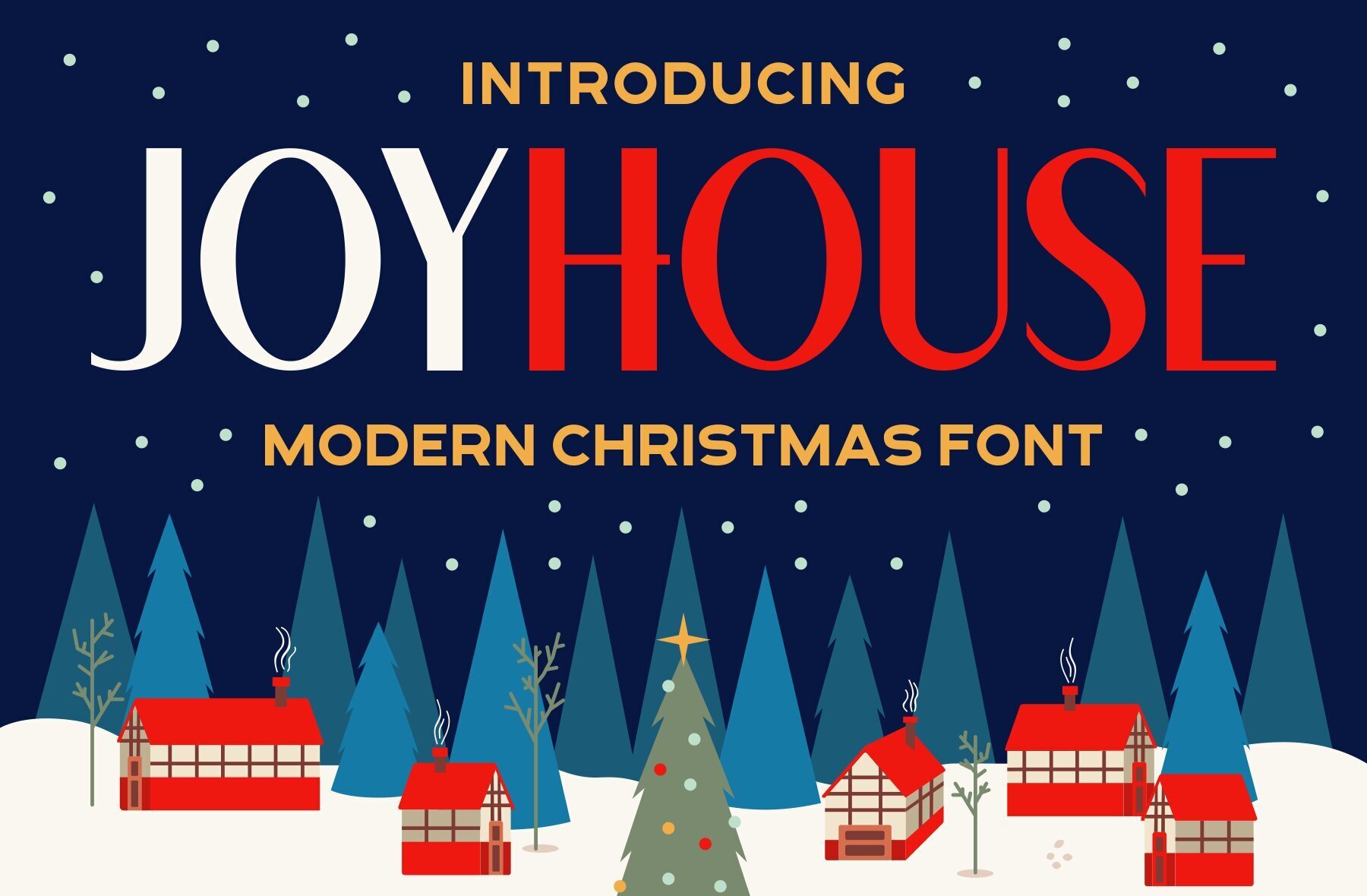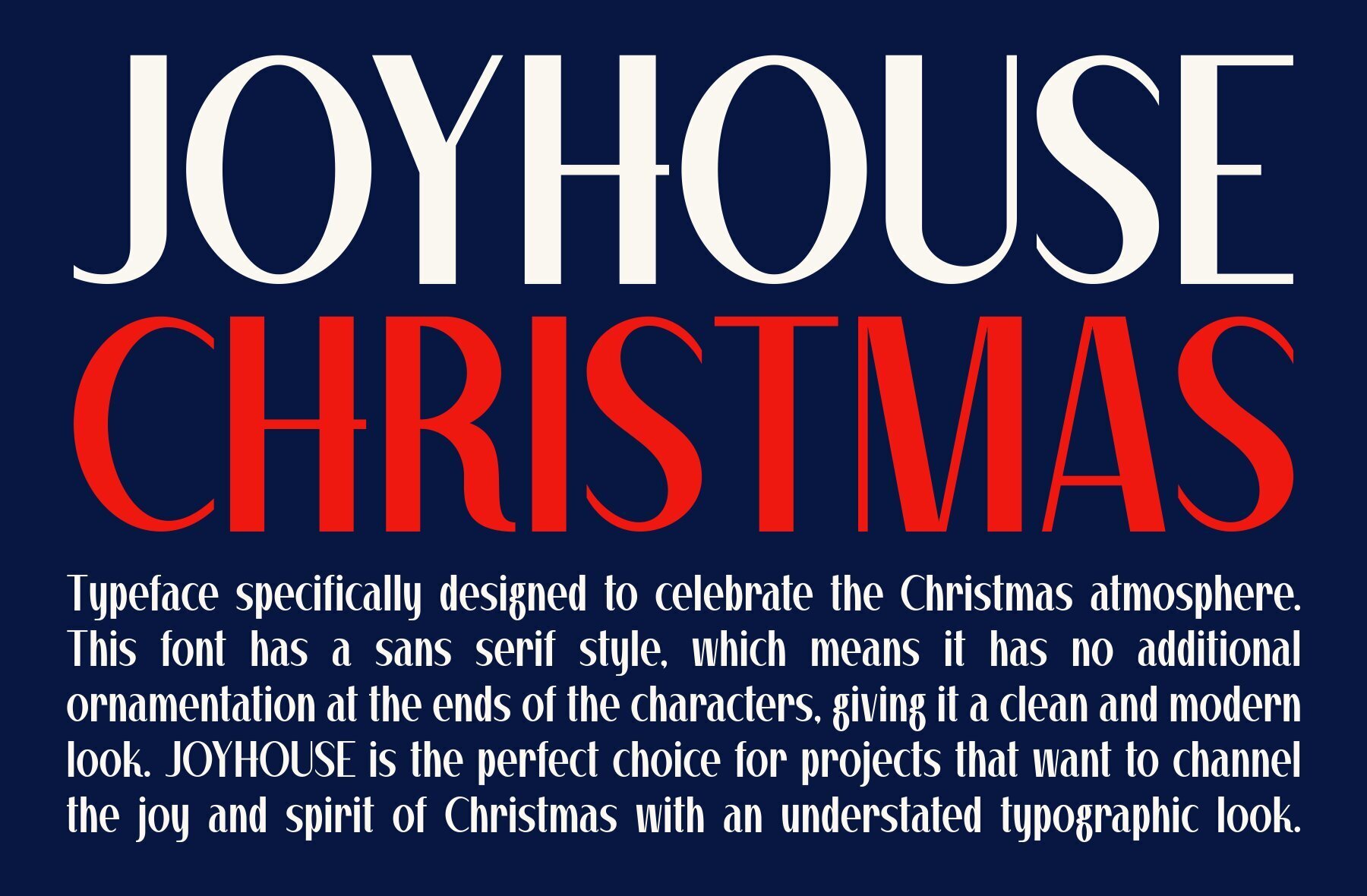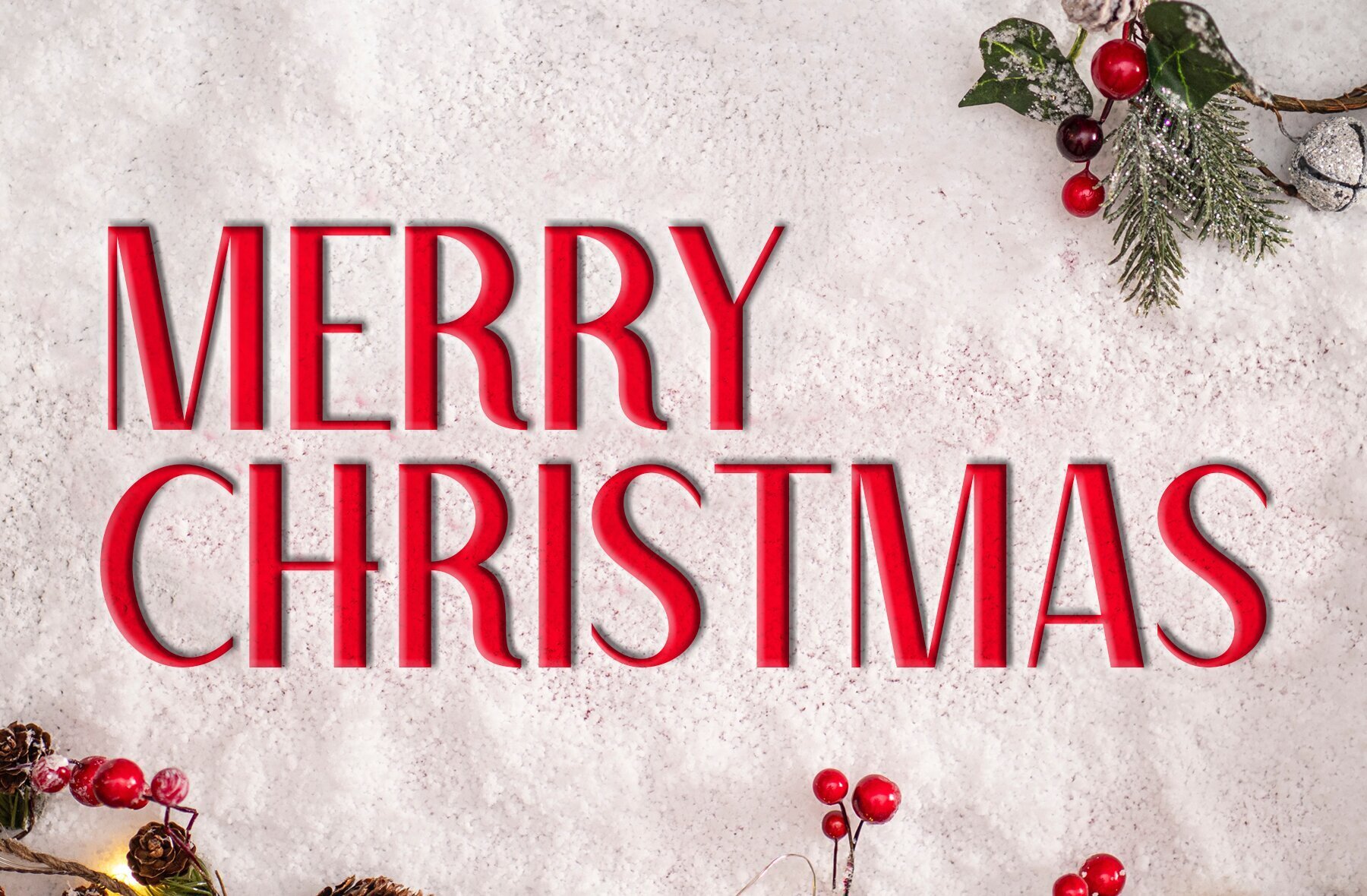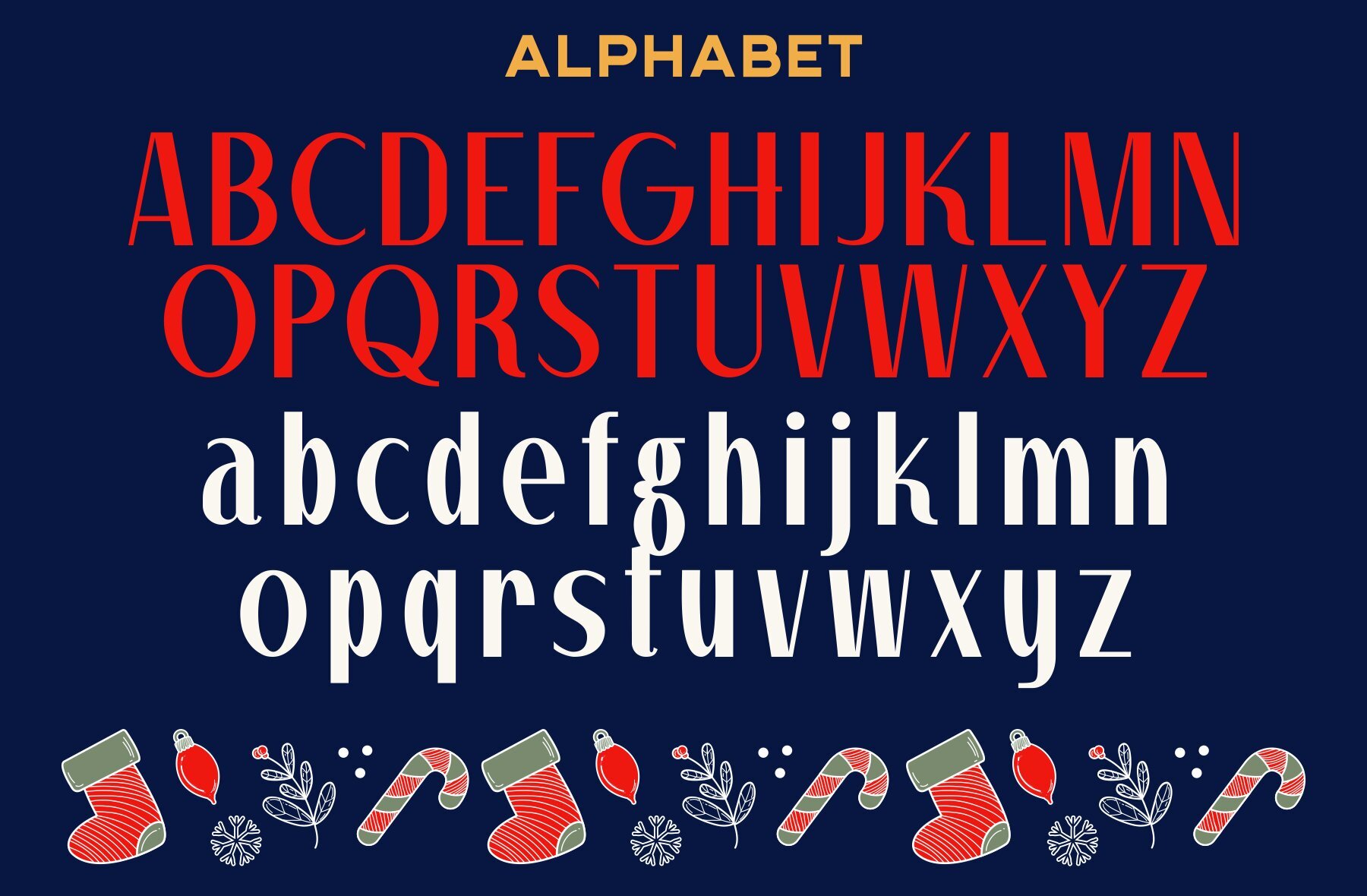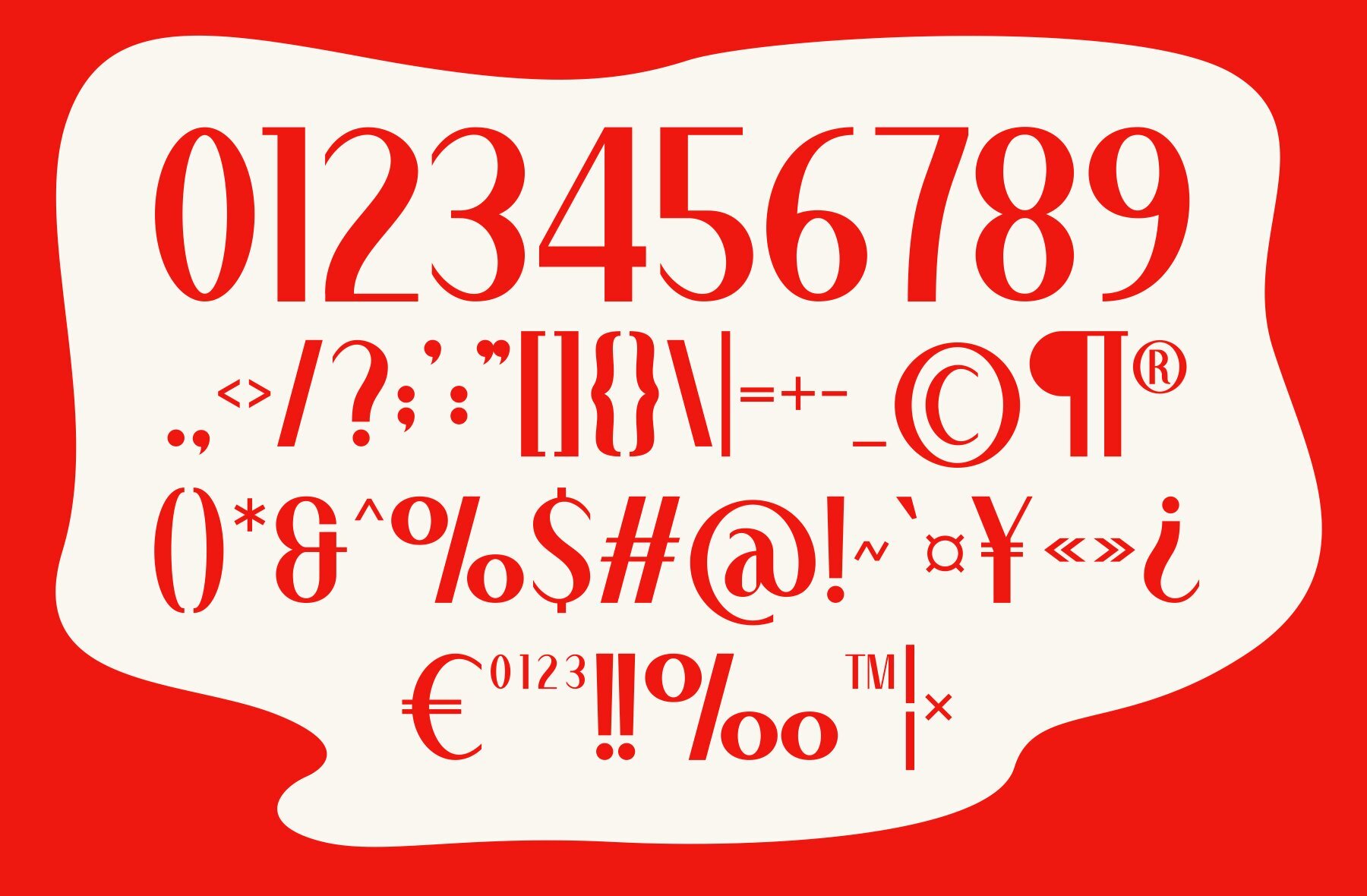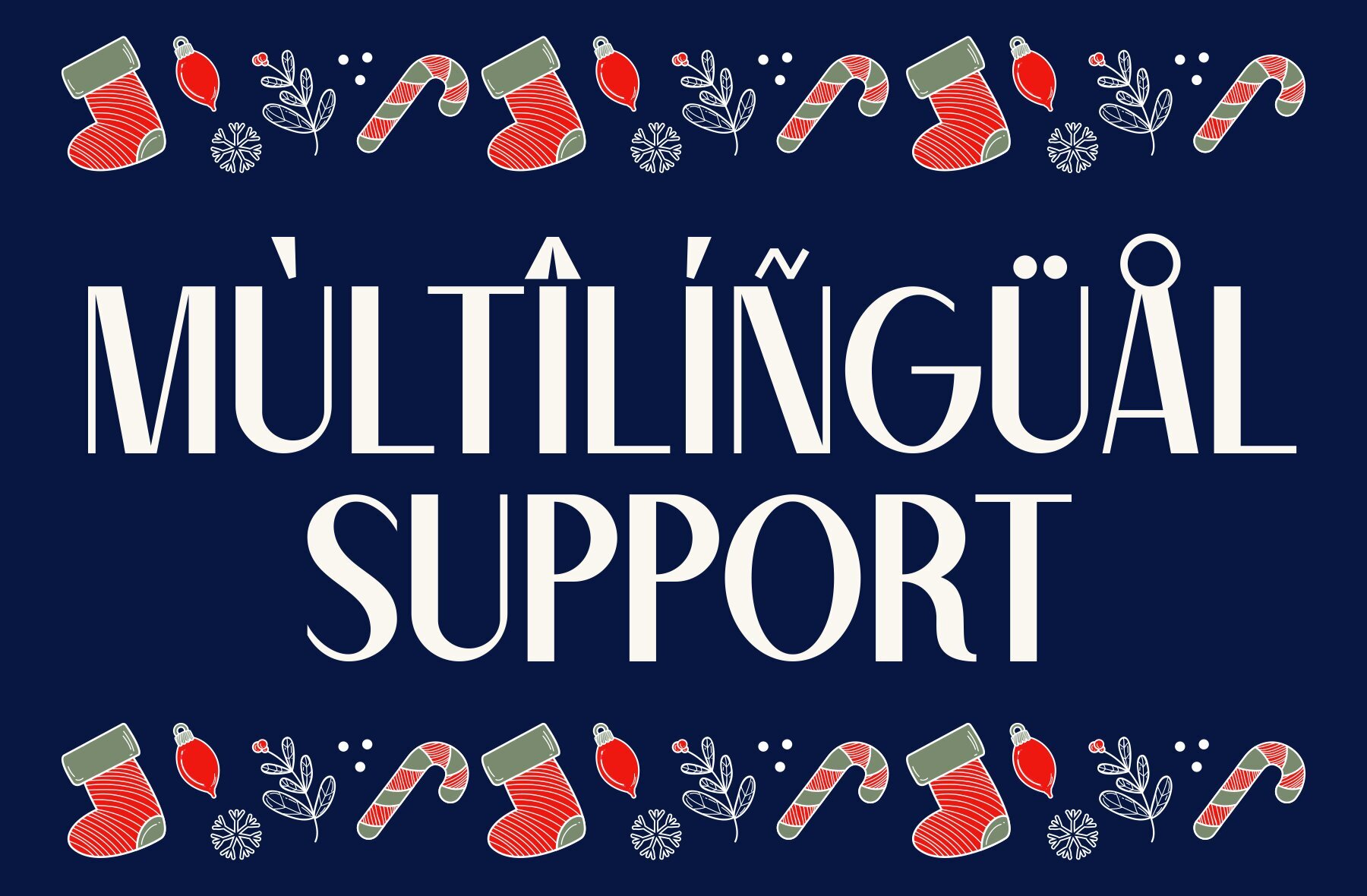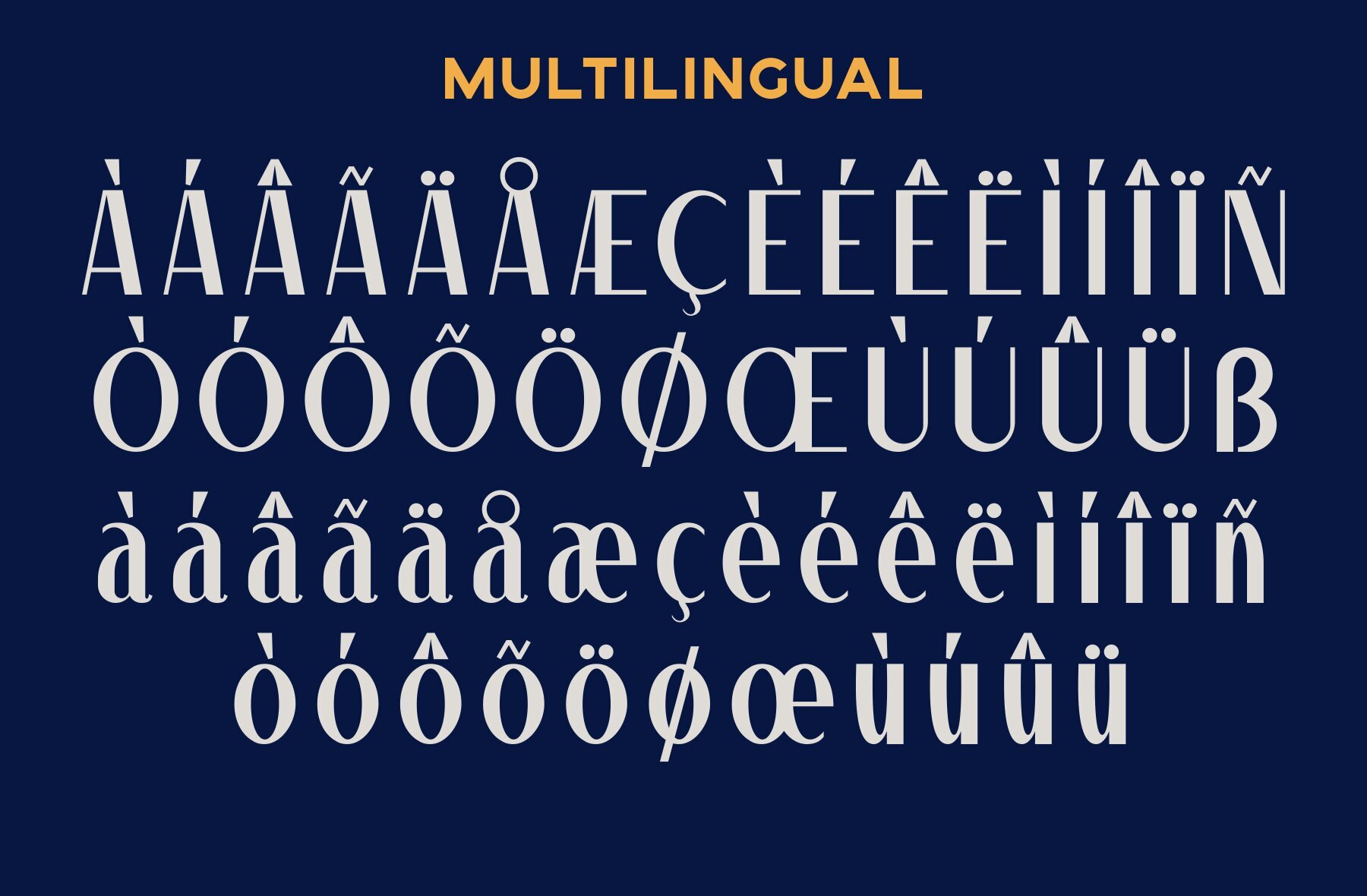
Joyhouse Font
JOYHOUSE Regular
Joyhouse Font is a modern sans serif created specifically for the holiday season. This authentic Christmas display font adds a touch of festivity to any project, making it perfect for branding ventures such as logos, templates, and more. Its versatility shines across a variety of contexts.Joyhouse: A Modern Sans Serif for Holiday Cheer